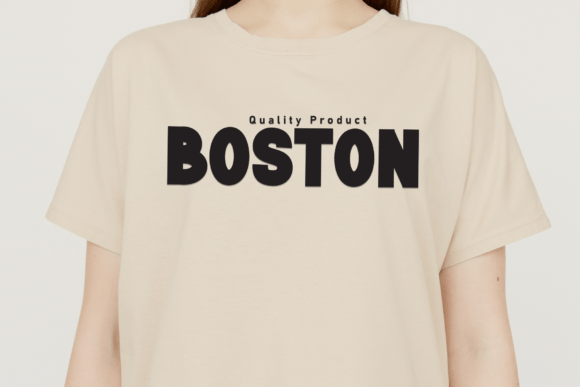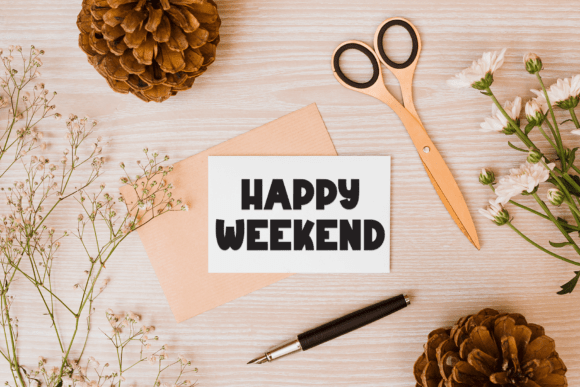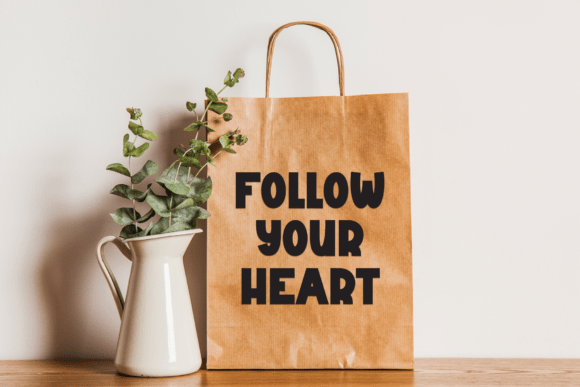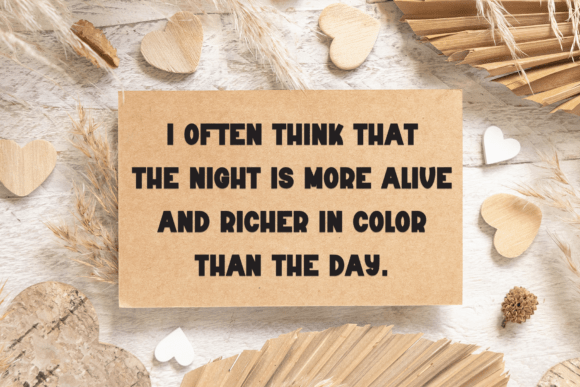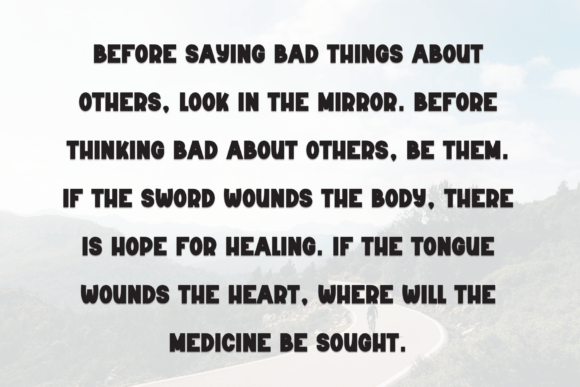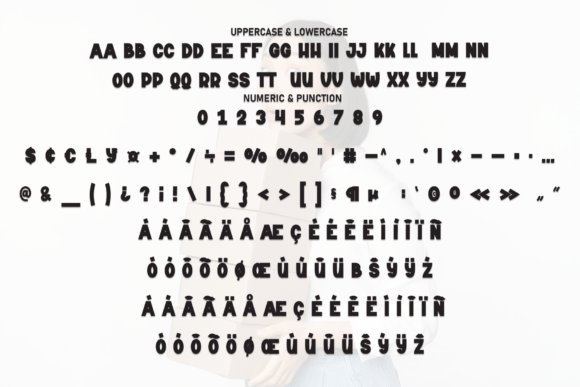
Bulky Simple Font: The Perfect Blend of Casual and Neat for Your Design Projects
In the world of typography, finding the right font can make all the difference in the success of your design project. Whether you’re a professional designer or a crafty DIY enthusiast, the font you choose can elevate your work from ordinary to extraordinary. This is where Bulky Simple comes in – a casual and neat display font that’s designed to bring warmth and clarity to your projects.
What is Bulky Simple Font?
Bulky Simple is a thoughtfully crafted display font that strikes the perfect balance between being casual and neat. Its clean structure and approachable style make it an excellent choice for a wide range of design applications, from branding and headlines to everyday designs. This font is all about bringing a sense of warmth and genuineness to your messages, making it an ideal choice for designers and crafters who want to create a lasting impression.
Key Features of Bulky Simple Font
So, what makes Bulky Simple stand out from the crowd? Here are some of its key features:
- Clean Structure: Bulky Simple boasts a clean and well-organized structure that gives it a neat and tidy appearance. This makes it perfect for designs where clarity and readability are paramount.
- Approachable Style: Despite its clean structure, Bulky Simple has an inherently approachable and casual vibe. This makes it an excellent choice for designers who want to create a friendly and inviting atmosphere in their work.
- Balanced Letterforms: The font features balanced letterforms that offer exceptional readability and charm. This balance ensures that your messages are conveyed in a way that’s both clear and captivating.
- Versatility: Bulky Simple is incredibly versatile and can be used for a wide range of design projects, including branding, headlines, posters, and more.
Why Choose Bulky Simple Font?
With so many fonts available, why should you choose Bulky Simple for your design projects? Here are a few compelling reasons:
- Warmth and Clarity: Bulky Simple brings a unique blend of warmth and clarity to your designs. Its clean structure and approachable style ensure that your messages are conveyed in a way that’s both genuine and inviting.
- Ease of Readability: The balanced letterforms of Bulky Simple make it exceptionally easy to read, even at smaller sizes. This is particularly useful for designs where space is limited.
- Universal Appeal: The font’s casual yet neat appearance gives it a universal appeal that can be used across various design projects and industries.
- Time-Saving: With Bulky Simple, you can save time and effort in finding the perfect font for your project. Its versatility and wide range of applications make it a valuable addition to any designer’s toolkit.
How to Use Bulky Simple Font in Your Designs
Using Bulky Simple in your designs is straightforward and easy. Here are a few tips to get you started:
- Branding: Use Bulky Simple as a primary font for your brand’s logo or as a supporting font for headings and titles. Its clean structure and approachable style make it perfect for creating a strong brand identity.
- Headlines: Add impact to your headlines with Bulky Simple. Its balanced letterforms and readability ensure that your headlines are clear, concise, and attention-grabbing.
- Posters and Flyers: Bulky Simple is an excellent choice for posters and flyers. Its versatility and wide range of applications make it suitable for various design projects, from advertising to event promotion.
- Digital Designs: Use Bulky Simple in your digital designs, such as website headers, social media graphics, and email newsletters. Its clean structure and approachable style ensure that your messages are conveyed effectively across various digital platforms.
In conclusion, Bulky Simple is a versatile and highly effective font that can elevate your design projects to new heights. Its unique blend of warmth, clarity, and readability makes it an excellent choice for designers and crafters who want to create a lasting impression. Whether you’re working on branding, headlines, or everyday designs, Bulky Simple is sure to become a valuable addition to your toolkit.